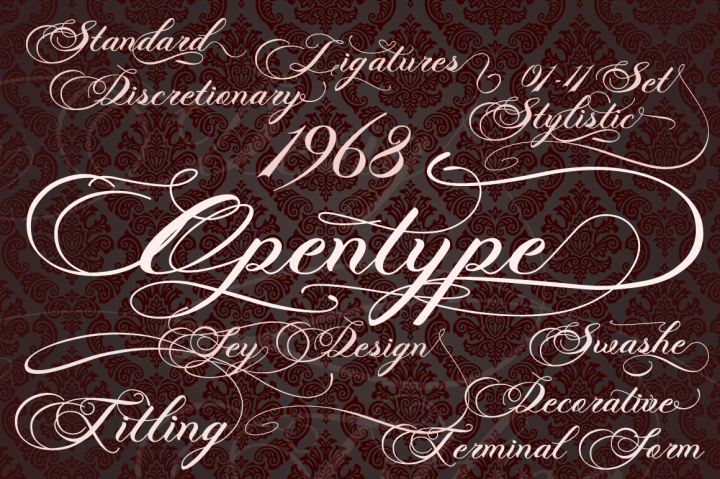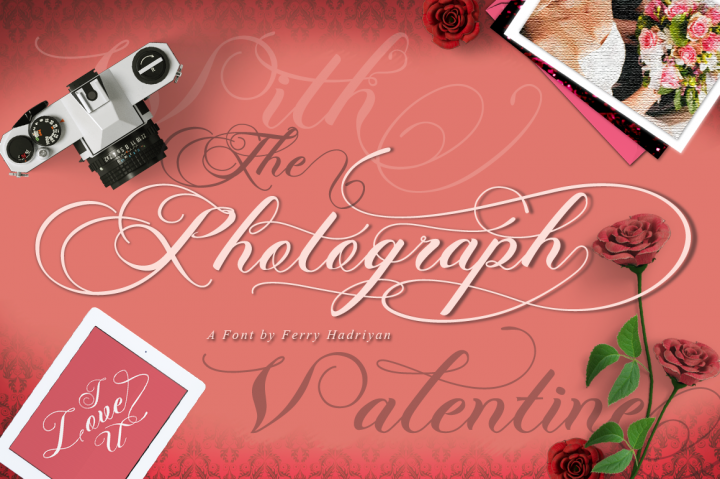
Photograph Script
Photograph Script Wedding Font
Photograph is script font with modern calligraphy style,so much feature OpenType with swashes, 11 stylistic set, standard ligatures, Discreationary Ligatures, Titling, Terminal Forms, etc, Suitable for design, element design, wedding, event, t-shirt, logo, badges, sticker, and awesome work, etc…